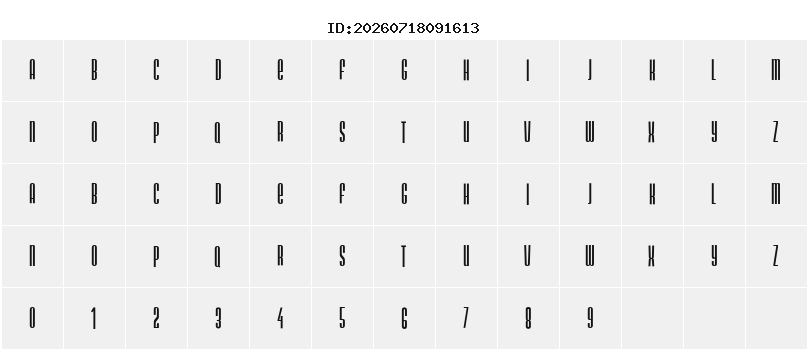
CgNeonExCd Preview
About CgNeonExCd.ttf
CgNeonExCd.ttf is a modern, elegant sans-serif font designed for ultimate readability and visual harmony. Perfect for branding, headlines, web design, and print materials.